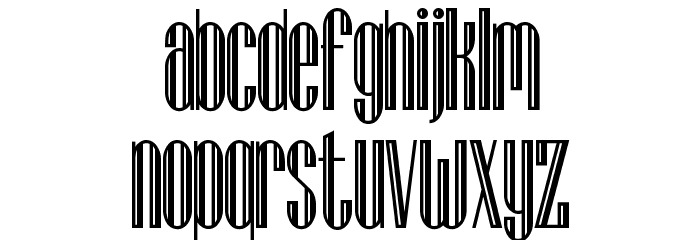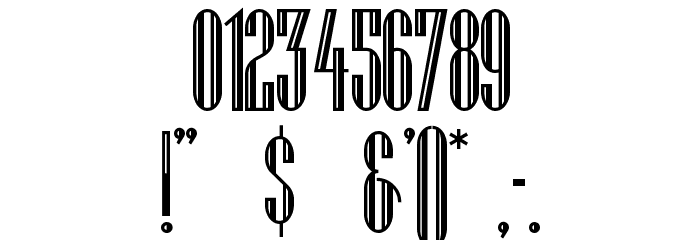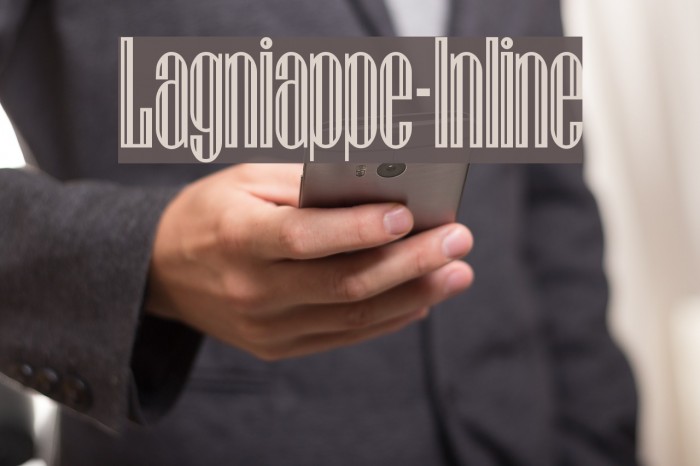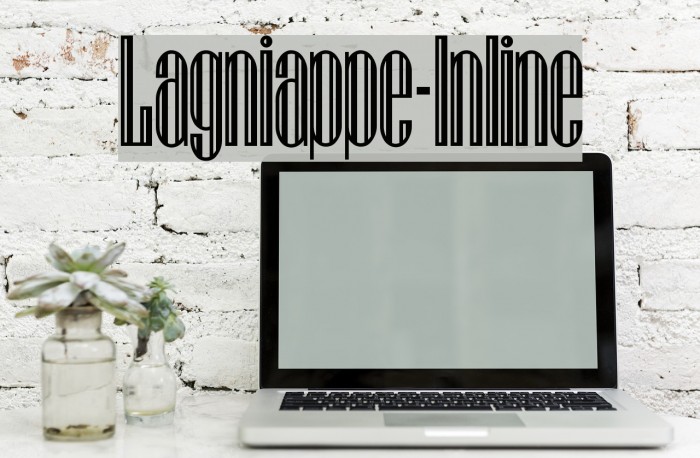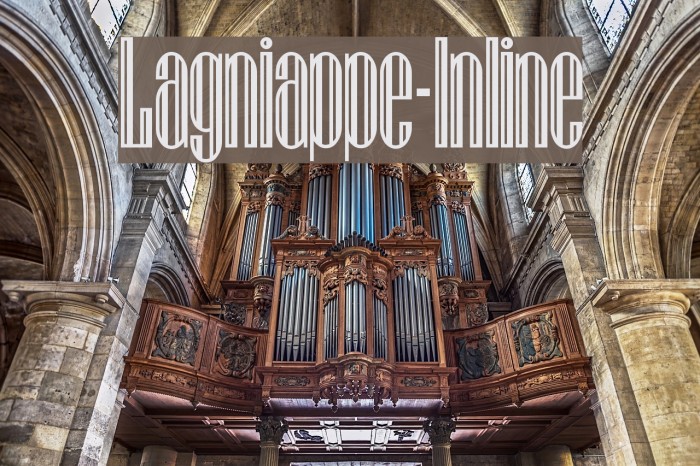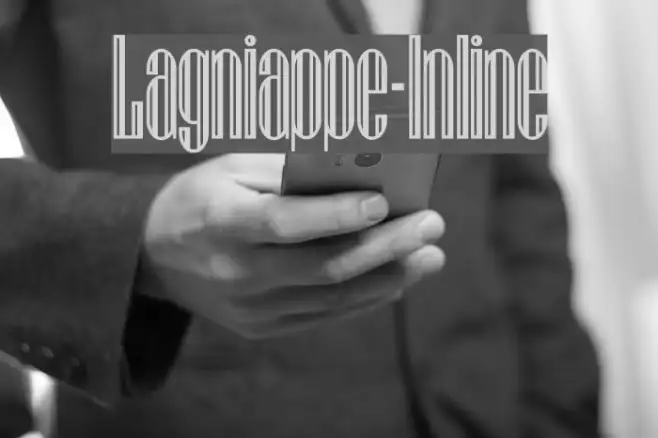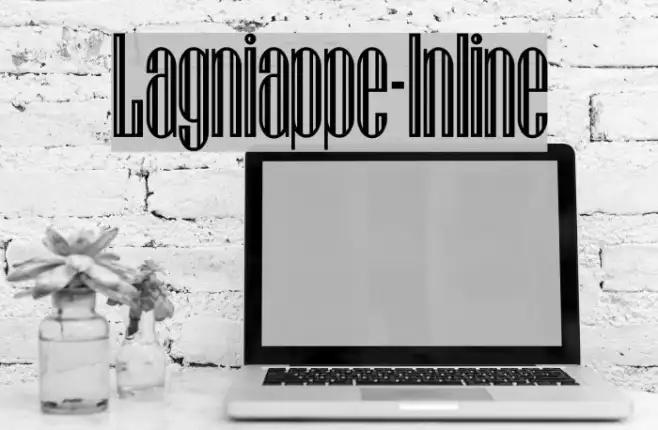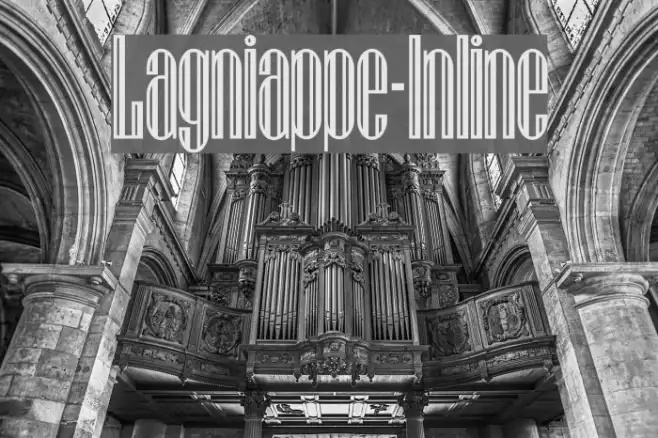
Lagniappe-Inline Font
This font features a unique inline design that combines elegance with a modern twist. The characters are tall and narrow, with a distinct vertical emphasis, creating a sophisticated and stylish appearance. The inline detail adds depth and interest, making it stand out in any design. The uppercase and lowercase letters maintain a consistent style, while the numbers and special characters complement the overall aesthetic. This font is perfect for projects that require a touch of class and modernity.
A tall, narrow font with elegant inline detailing and a modern style.
- Font: Lagniappe-Inline
- Proposed Projects: Ideal for luxury branding, fashion magazines, high-end product packaging, and elegant invitations.
- Character Spacing: Tight